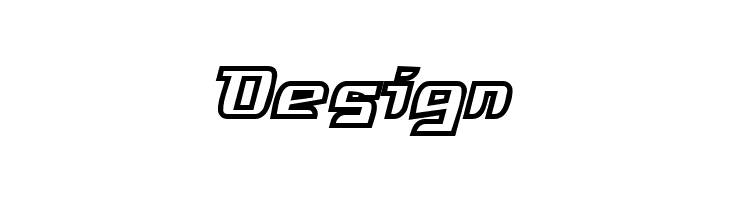
Montalban Condensed Bold Font
- Font: Montalban Condensed Bold
( Fonts by Utopiafonts )
A bold, geometric outline font with a modern and dynamic style.